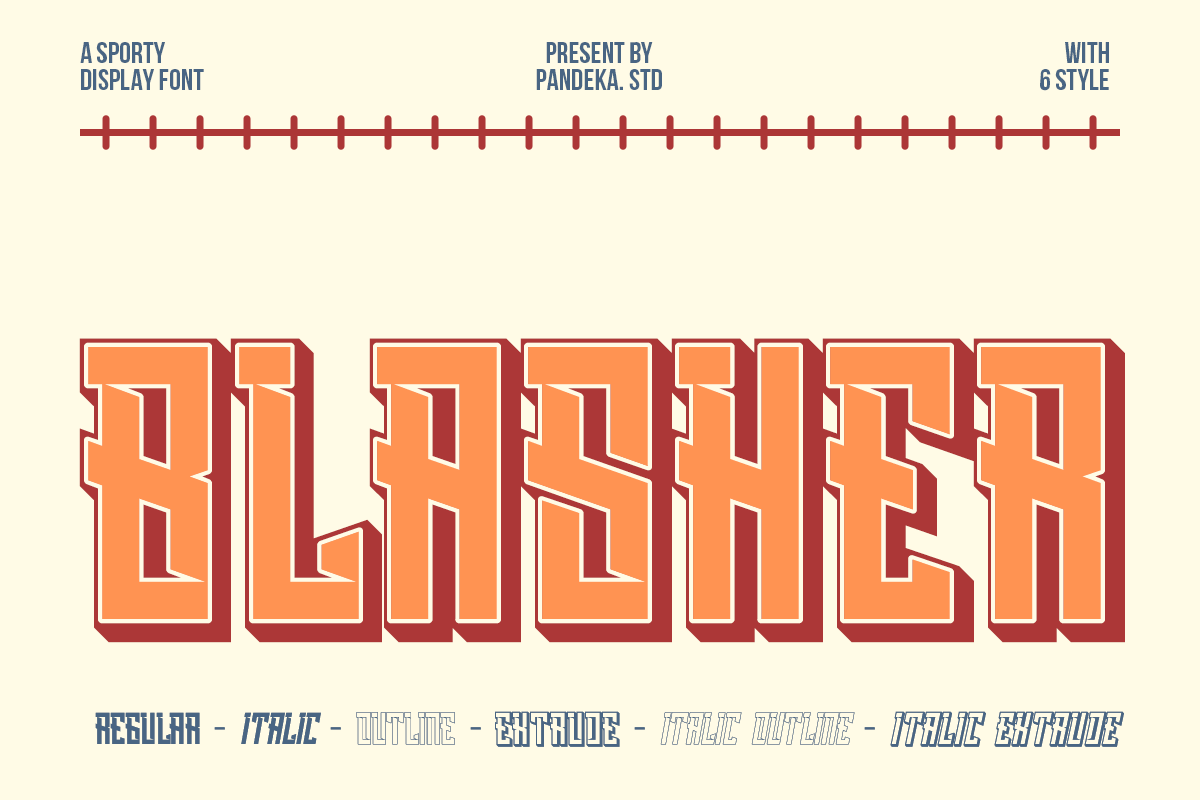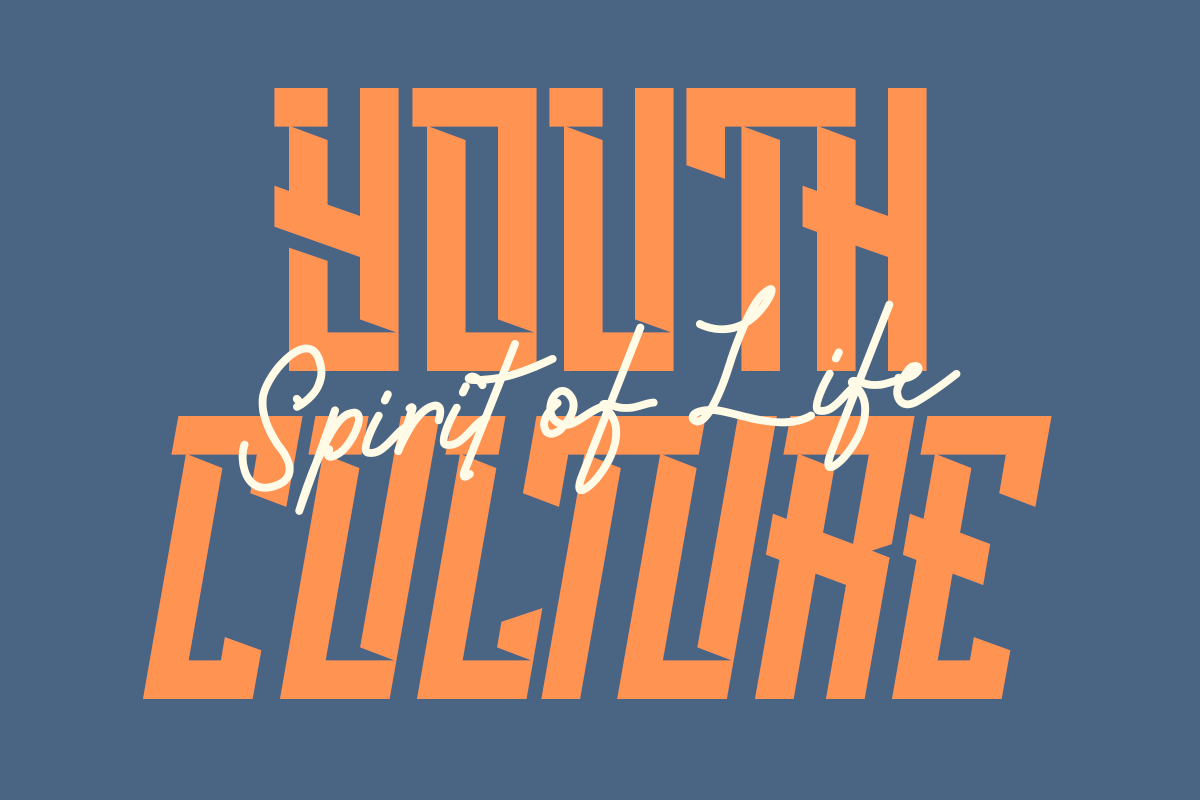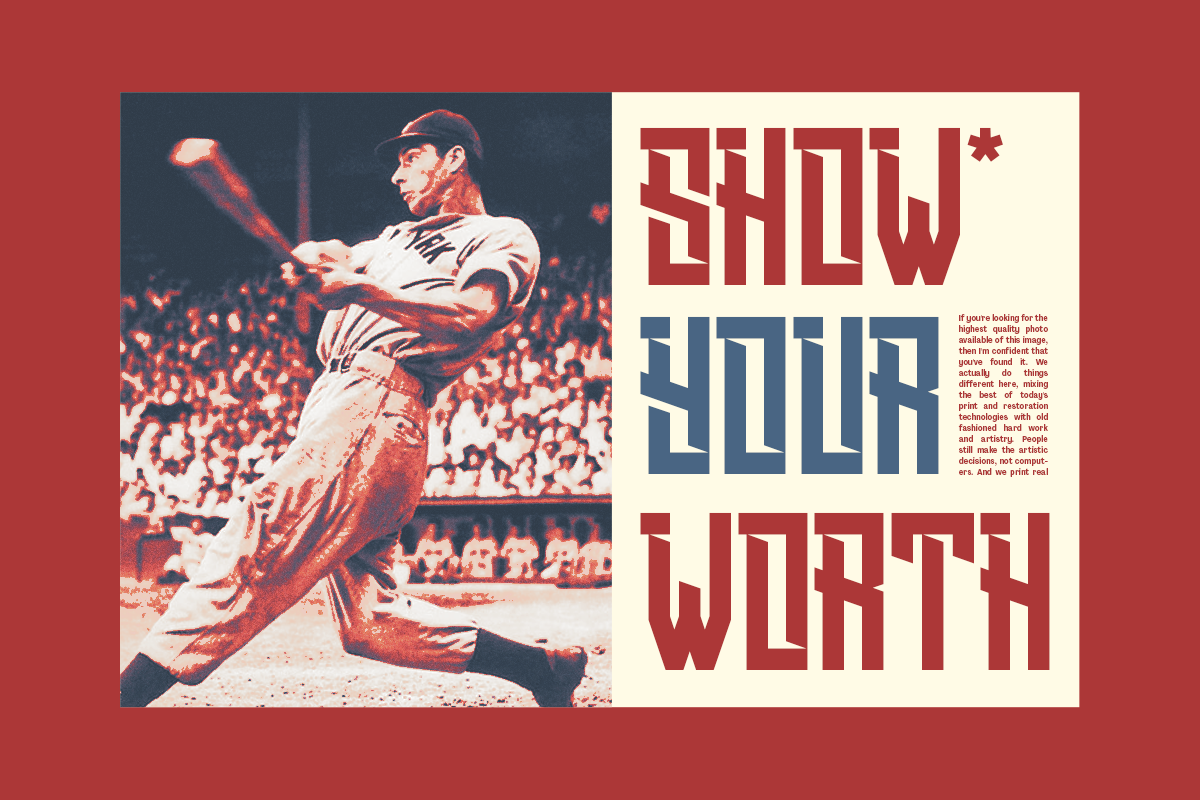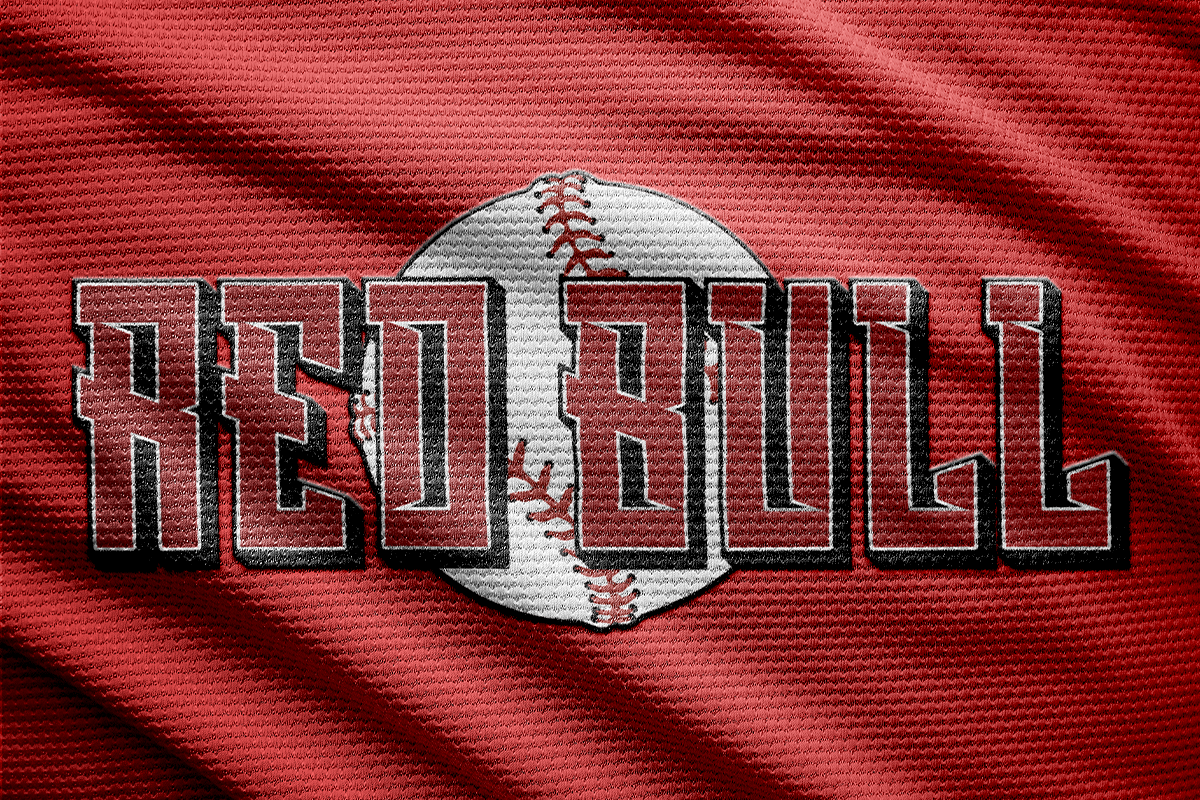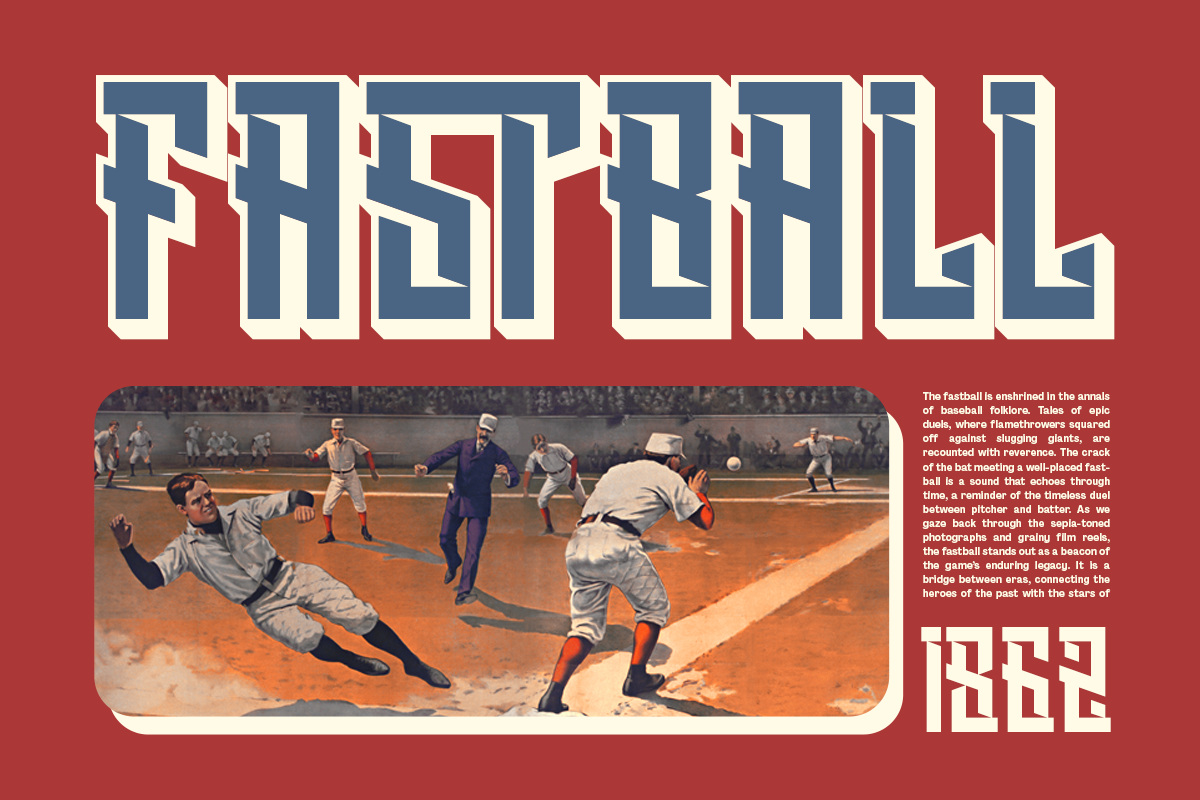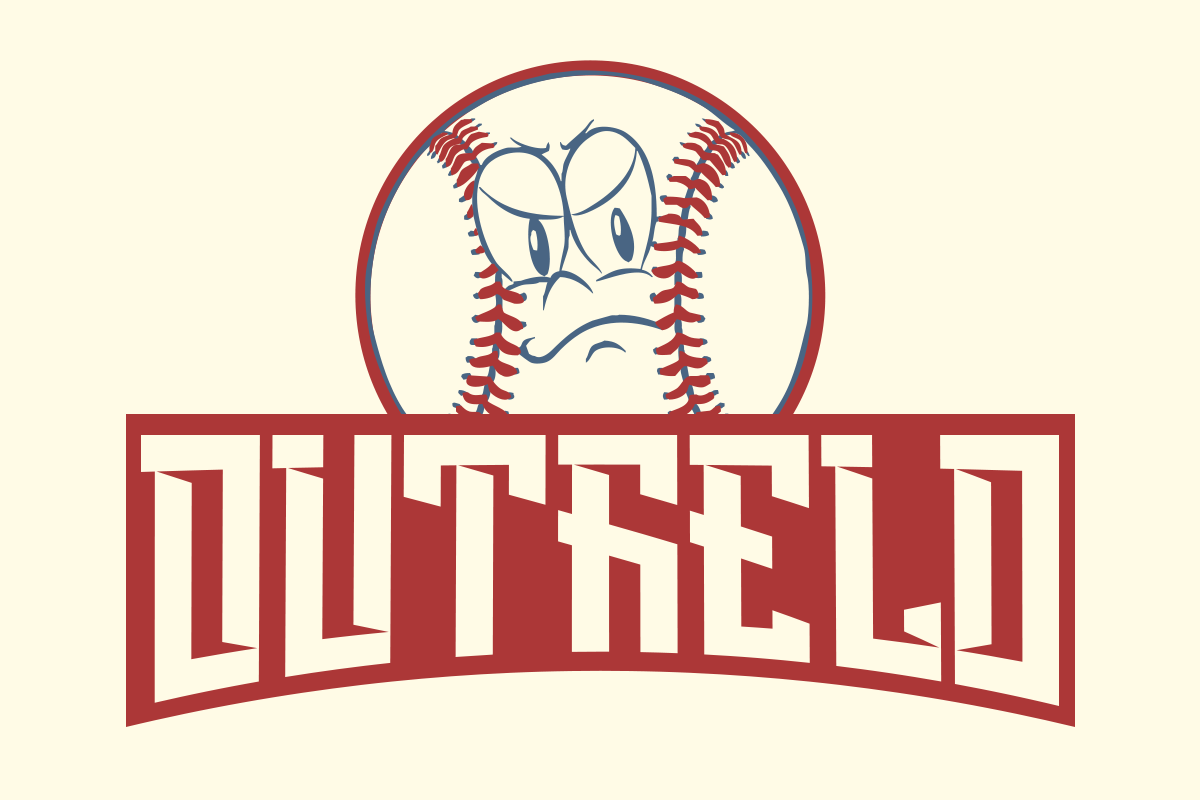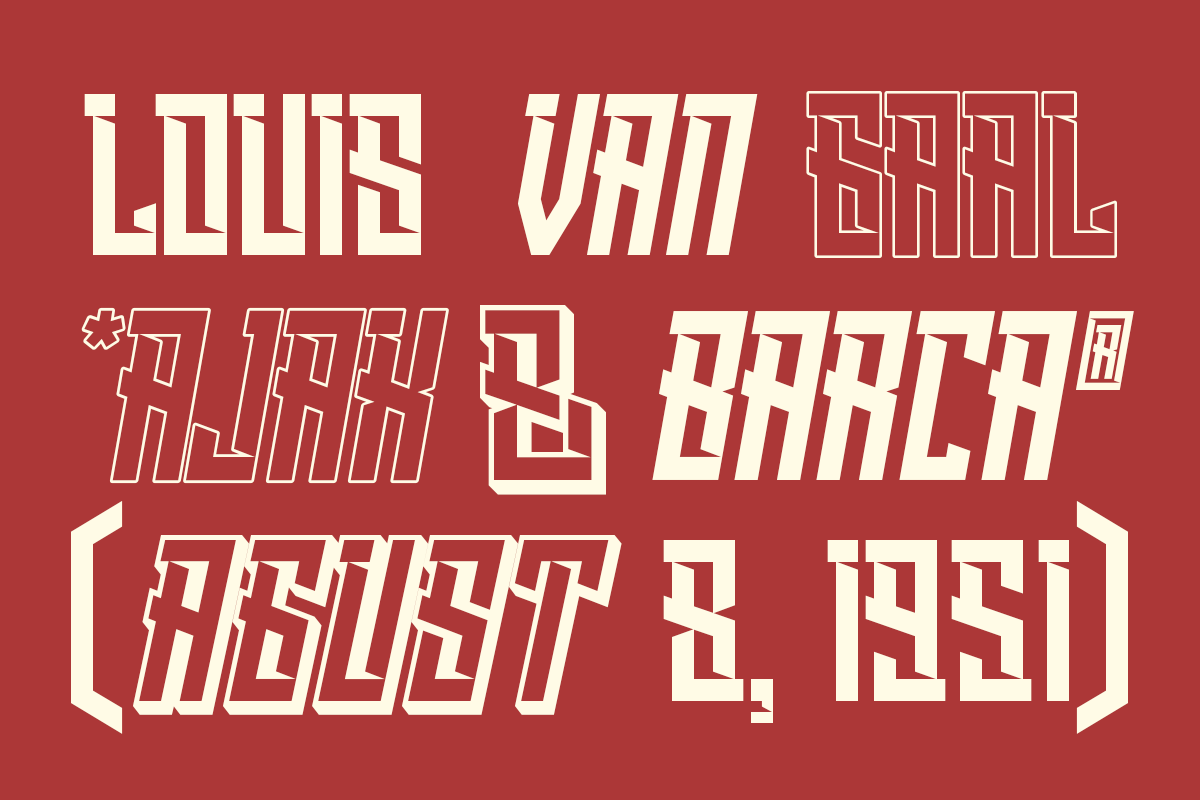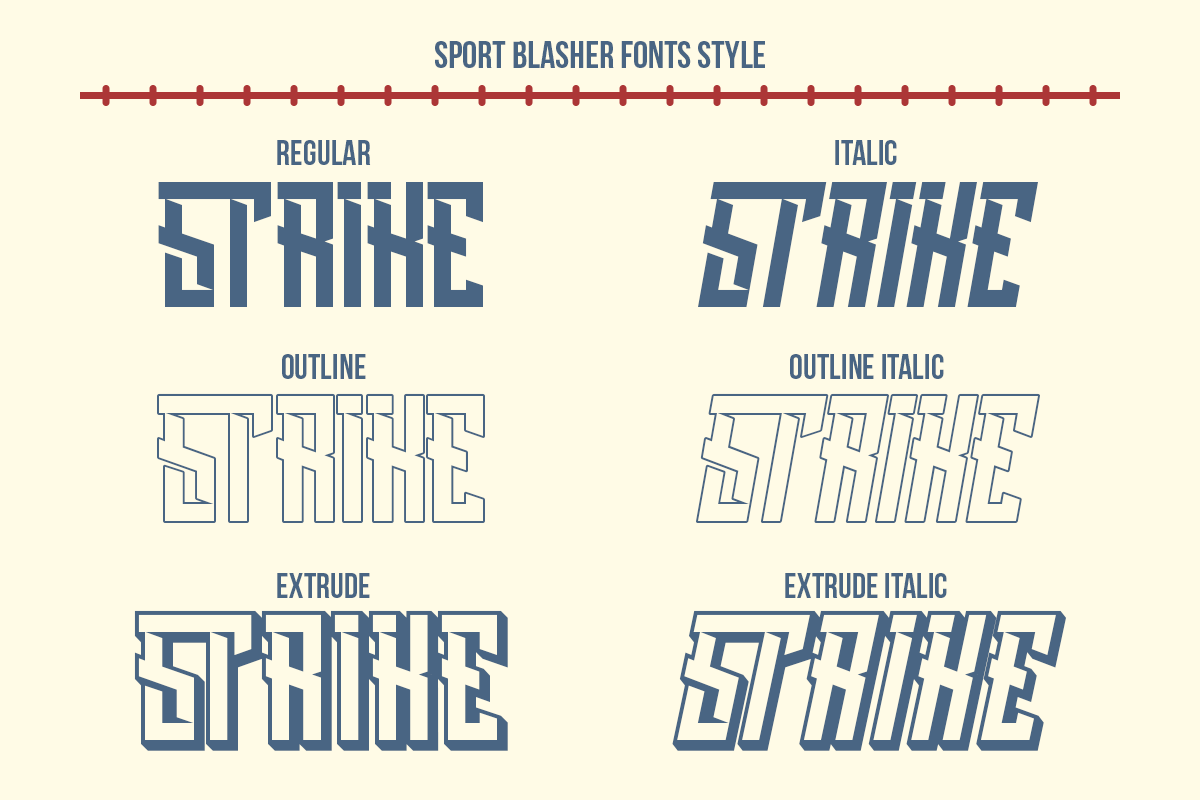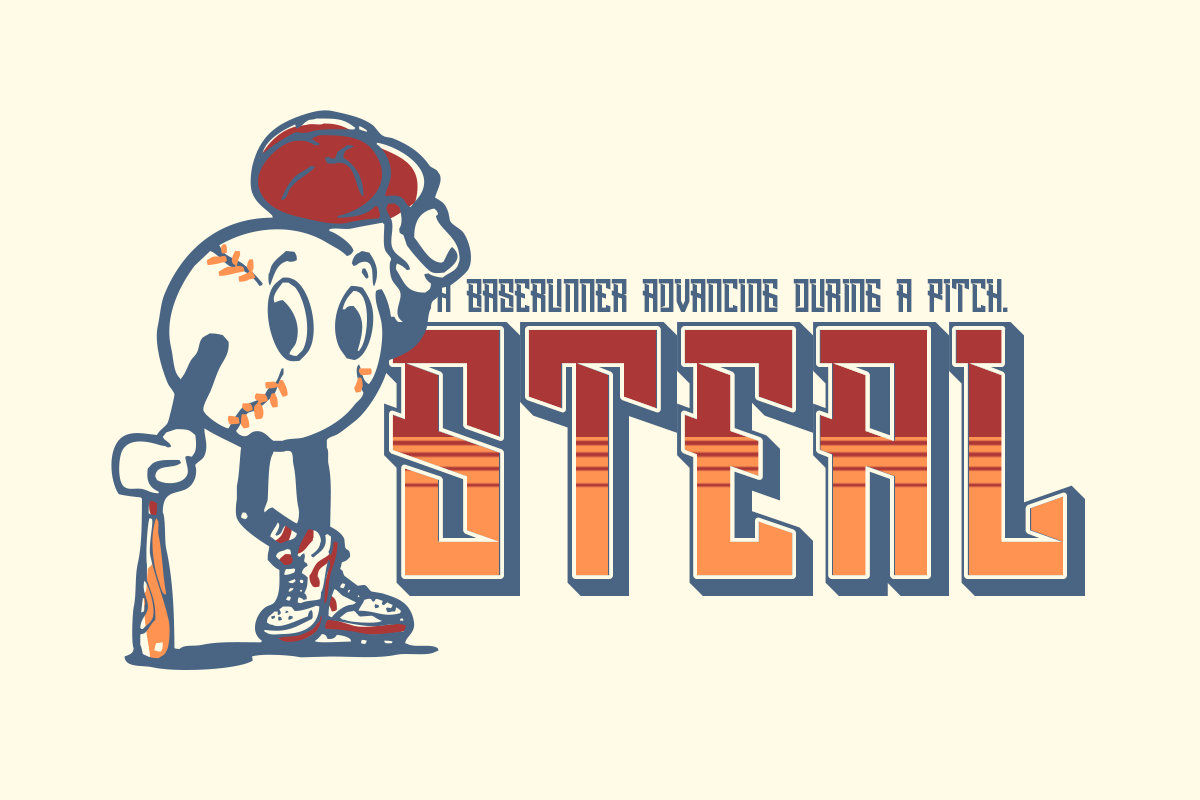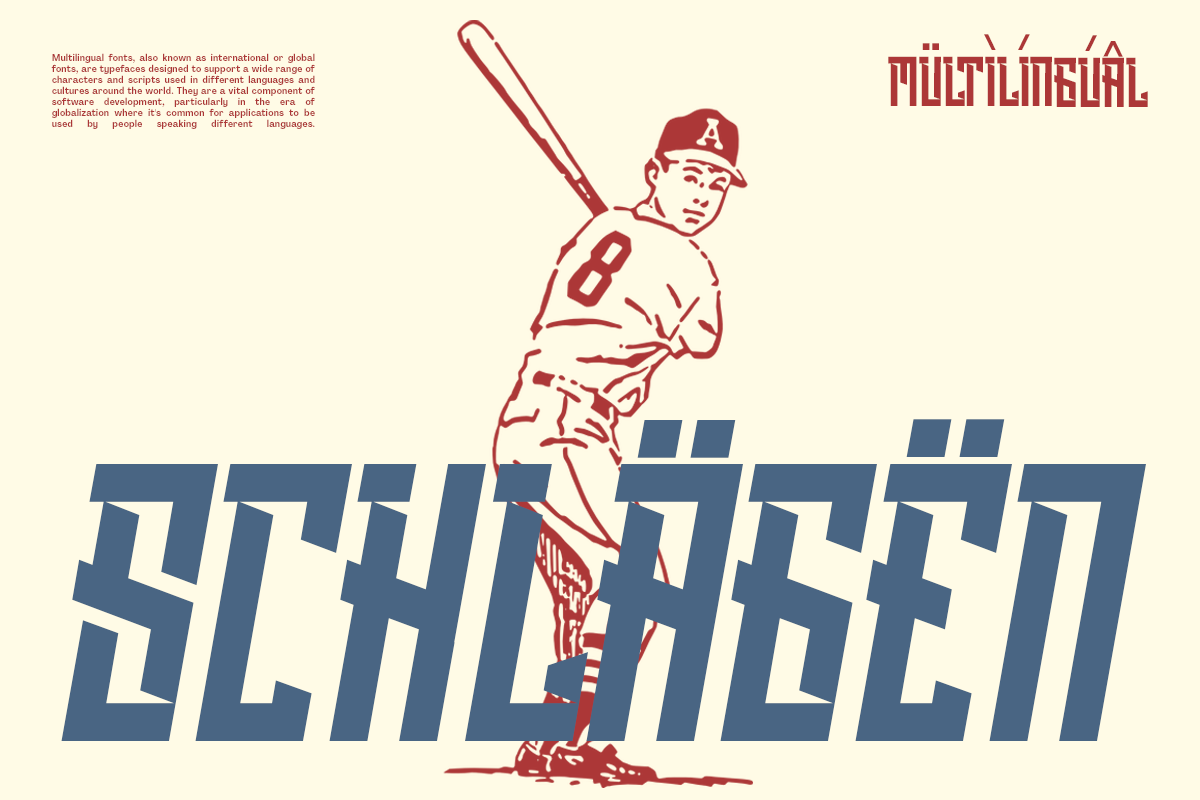
Blasher - Sport Baseball Font
Introducing Blasher, a sporty display font with a condensed slab style that packs a punch!
Blasher is crafted to elevate your designs with its dynamic and athletic feel, ideal for invoking the spirit of sports, particularly baseball. This font offers 6 styles: Regular, Italic, Outline, Italic Outline, Extrude, and Italic Extrude,** providing versatility for logos, branding, posters, and more.
It stands out with a strong presence and unique character, capturing the essence of athleticism and competitive spirit. Whether for sports-themed projects or energetic designs.
- 6 styles: Regular, Italic, Outline, Italic Outline, Extrude, and Italic Extrude
- Unique letterforms